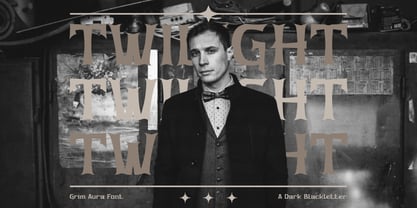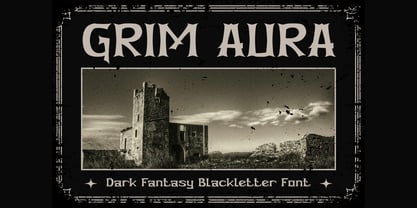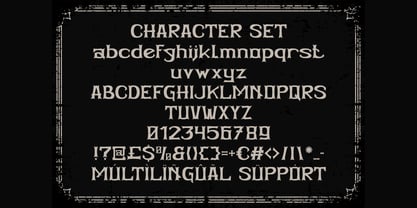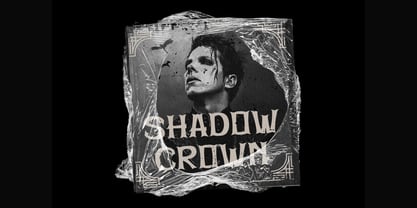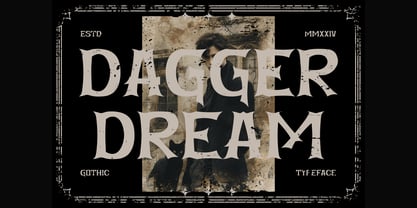
Grim Aura
by Shanaf
The Grim Aura Font Family was designed by Yesie Erma Yunita and published by Shanaf. Grim Aura contains 1 styles. More about this family
Grim Aura Dark Fantasy Blackletter Font captures the spirit of gothic artistry and dark fantasy elegance. Each letter is designed with sharp, angular strokes and tall proportions, creating a commanding and mysterious presence. The font’s structure blends classic blackletter forms with modern design balance, giving it both historical depth and contemporary appeal. The heavy serifs and pointed edges bring a sense of drama and strength, while the refined spacing ensures readability. Grim Aura Dark Fantasy Blackletter Font evokes the atmosphere of ancient manuscripts, dark castles, and mystical tales—making it a perfect choice for designs that seek a gothic yet sophisticated mood. This typeface is ideal for fantasy book covers, gothic posters, branding, film titles, and apparel design. It also fits perfectly for tattoo-inspired art, metal band logos, dark-themed packaging, and Halloween projects. Its bold, decorative form delivers a unique identity for every creative project that embraces mystery and power. Grim Aura Dark Fantasy Blackletter Font merges darkness, fantasy, and timeless craftsmanship into a striking visual style that’s both haunting and beautiful.